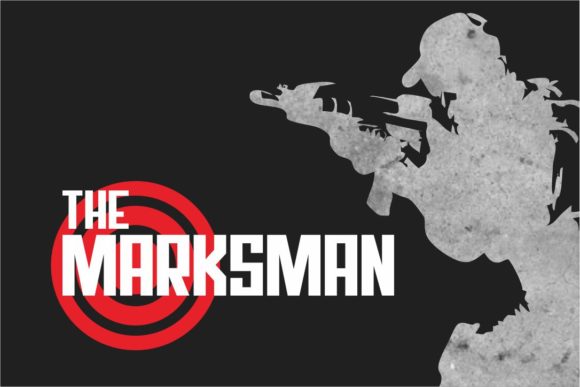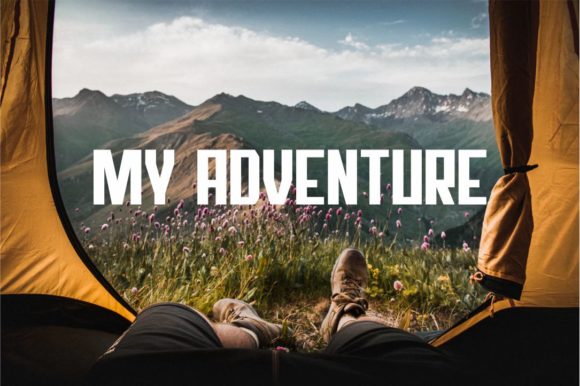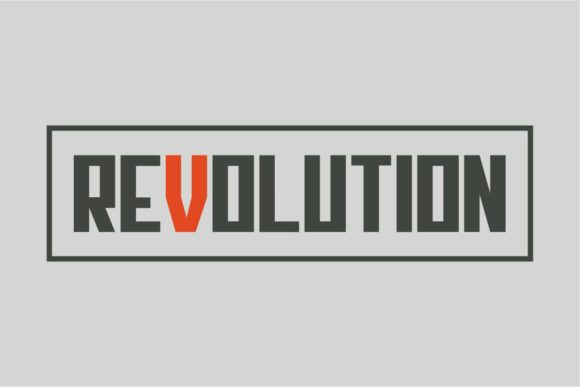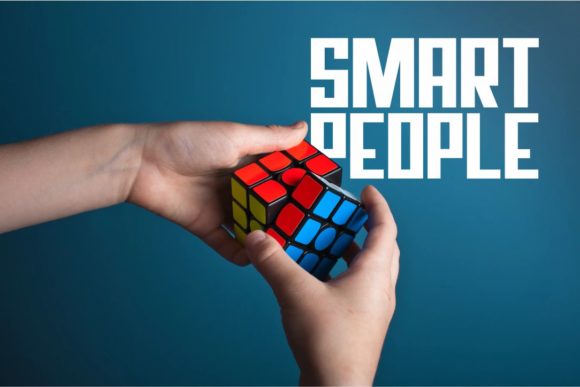
Introduction to Sikat Font
You know that moment when you’re brainstorming ideas for a creative project and everything just clicks? The vision is clear, the message is powerful, and you can almost see the final product in your mind. For designers, that moment is even more special, as it’s often the result of hours of hard work and dedication. But what if you could take that vision to the next level, making a memorable first impression that leaves a lasting impact on your audience?
That’s where Sikat Font comes in – a bold, high-quality font designed to help you make a statement. With its unique style and versatility, Sikat Font is the perfect design resource for any creative project. Whether you’re working on a poster, a headline, or any other visual element, this font is sure to elevate your design to the next level. And the best part? It’s available for free download, so you can get started right away and bring your vision to life.
Sikat Font: A Free Design Resource for Creative Projects
- High-quality font with transparent background, ideal for creative projects requiring a clear and crisp design.
- Includes a range of weights and styles to suit diverse design needs, from bold and playful to elegant and sophisticated.
- Designed with versatility in mind, Sikat Font is suitable for a wide range of applications, from branding and advertising to digital media and print materials.
- Comes with a comprehensive character set, including international characters and symbols, to cater to diverse language requirements.
Honest Review: Sikat Font
I recently came across Sikat Font while searching for a unique design resource for a creative project. At first glance, I was impressed by its clean and modern aesthetic, perfect for a minimalist design.
What works well with Sikat Font is its high quality and versatility. The font is available for free download, making it an excellent choice for designers on a budget. It also supports a transparent background, which is a great feature for creating visually appealing graphics.
The font’s versatility is also a major plus, as it can be used for a variety of creative projects, from logos to typography-based designs. I particularly enjoyed the range of weights and styles available, which allowed me to experiment with different looks and feels.
However, there are some limitations to consider: the font may not be suitable for more complex designs, and some users may find the font’s minimalist style too plain.
Overall, I was pleased with my experience with Sikat Font. Its high quality, versatility, and free download make it a great design resource for designers of all levels. While it may not be the best choice for every project, it’s definitely worth considering for your next creative endeavor.
- ✨ High quality and versatile design
- ✨ Supports transparent background
- ⚠️ May not be suitable for complex designs
- ⚠️ Some users may find the font too plain
Sikat Font
Tips for Getting the Most Out of Sikat Font
To get the most out of Sikat Font, experiment with different font sizes, colors, and combinations to find the perfect look for your design. You can also pair it with other design resources to create a cohesive and visually appealing design.
Sikat Font is perfect for a variety of design projects, including business cards, brochures, posters, and social media graphics. Its versatility and high-quality design make it a great addition to any design arsenal.